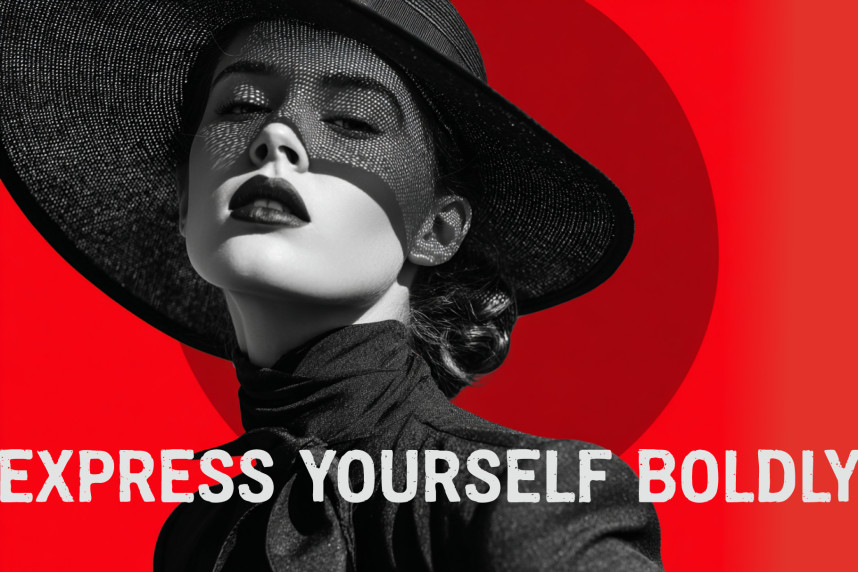
Rough Stampy Free Font
Rough Stampy Free Font – Personal Use Demo
โœฆ Rough Stampy Free is a limited personal-use demo font of the full Rough Stampy typeface by Letterlays. Create vintage labels, stamp graphics, packaging, logos, and expressive display graphics with Rough Stampy.
๐ŸŽจ Style notes: โœจ Rough Stampy is a rough stamp display font with distressed stamp texture, handmade ink edges, and vintage label character.
๐Ÿ”ค This free demo font includes uppercase Latin letters, numerals and selected basic punctuation for personal mockups, logo concepts, posters, social media graphics and layout tests.